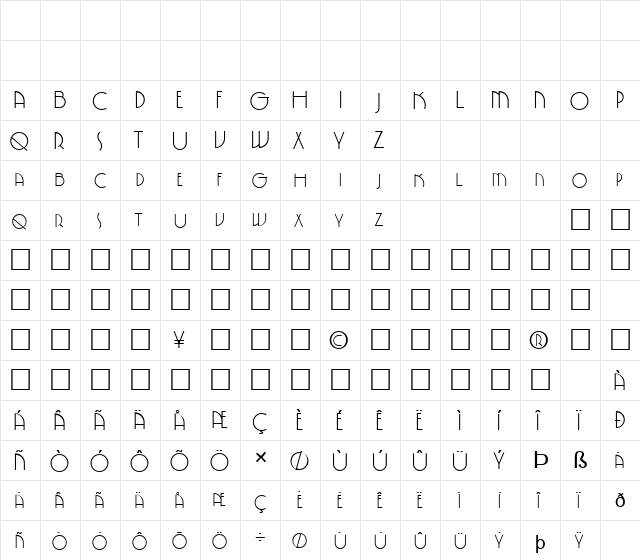
FZ JAZZY 5 Normal Font Preview
FZ JAZZY 5 Normal
FZ JAZZY 5 Normal Font Details
Design Context for FZ JAZZY 5 Typeface
FZ JAZZY 5 is a composed and adaptable typeface that performs quietly and consistently across a wide range of design contexts.